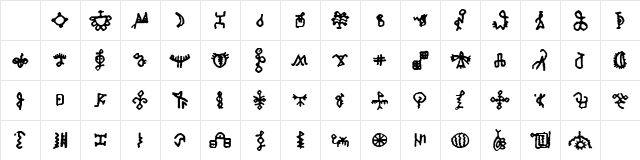
Complete Bamum Symbols 1 glyph index. Displaying only characters natively supported by Bamum Symbols 1 font.
Bamum Symbols 1 is a composed and adaptable typeface that performs quietly and consistently across a wide range of design contexts.